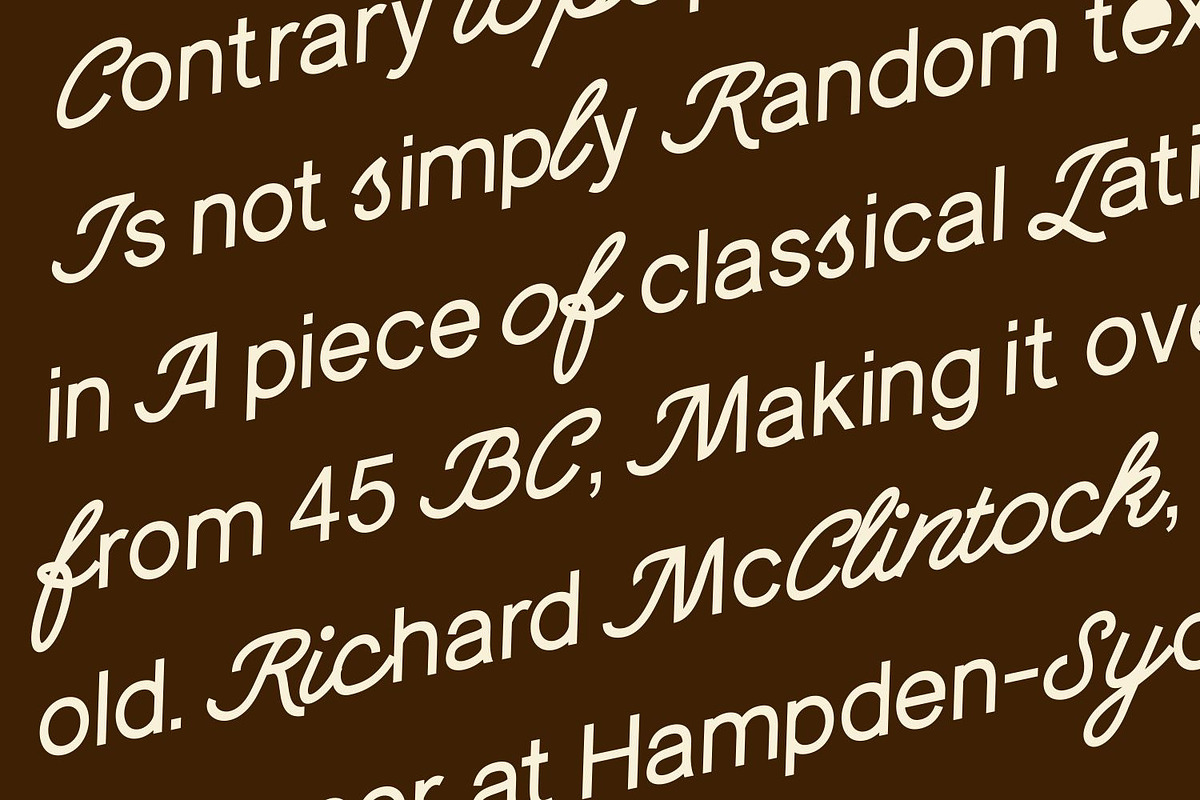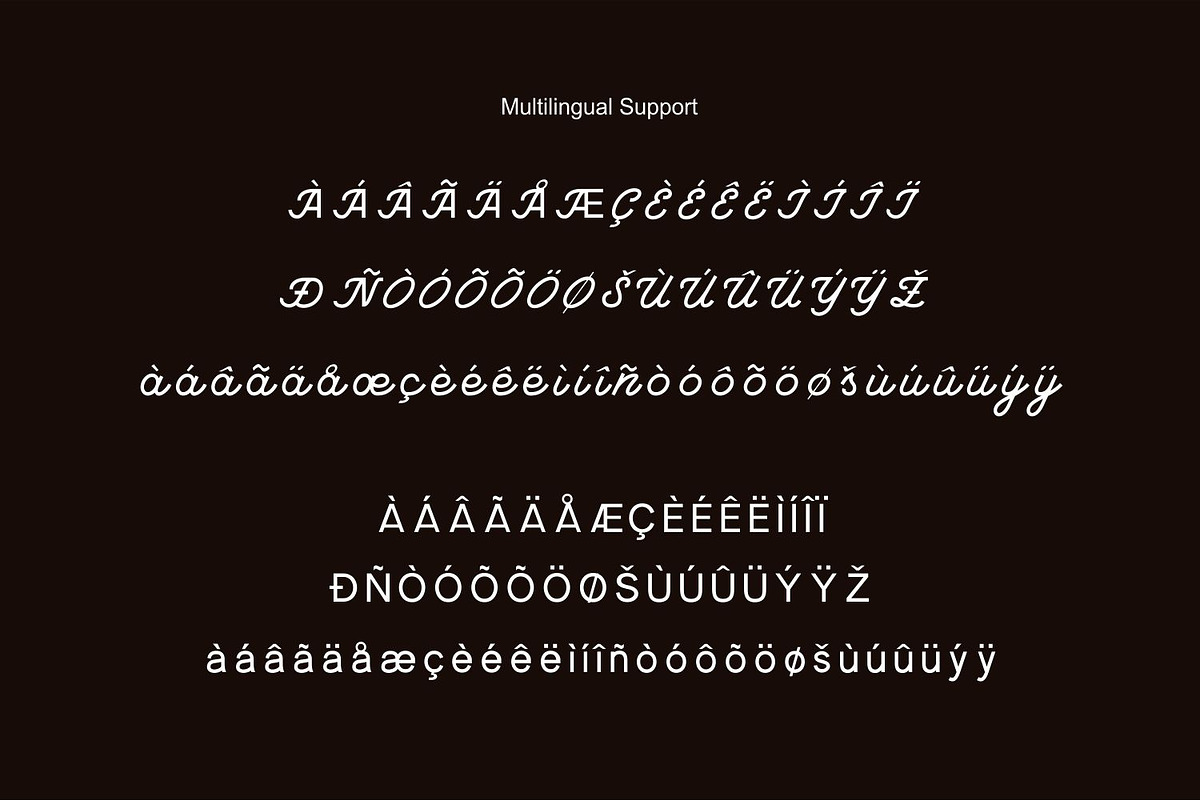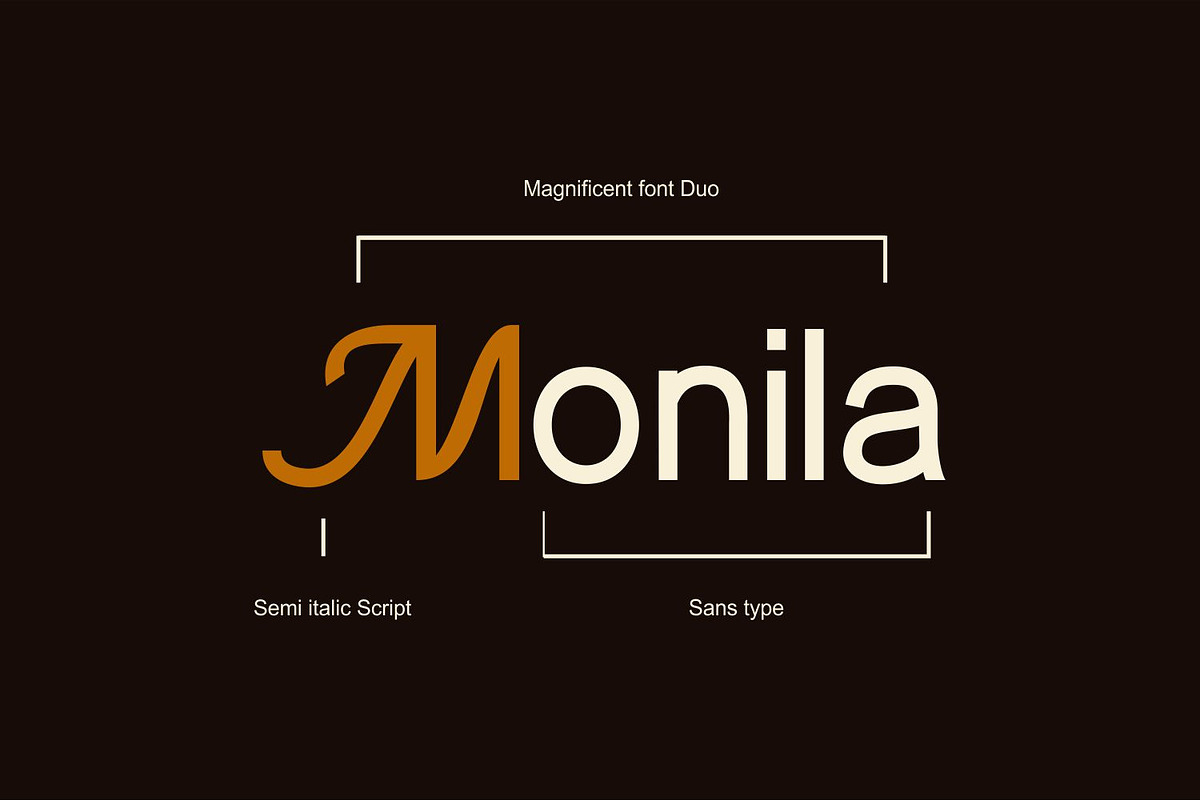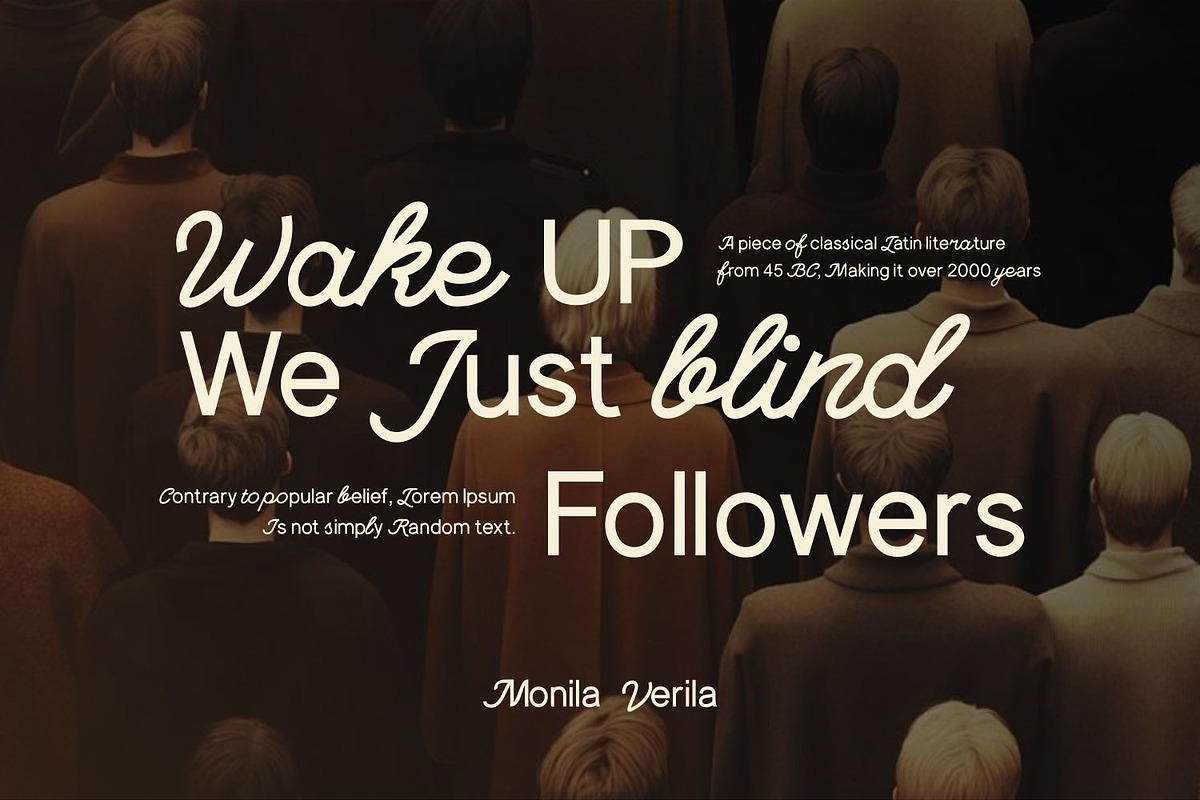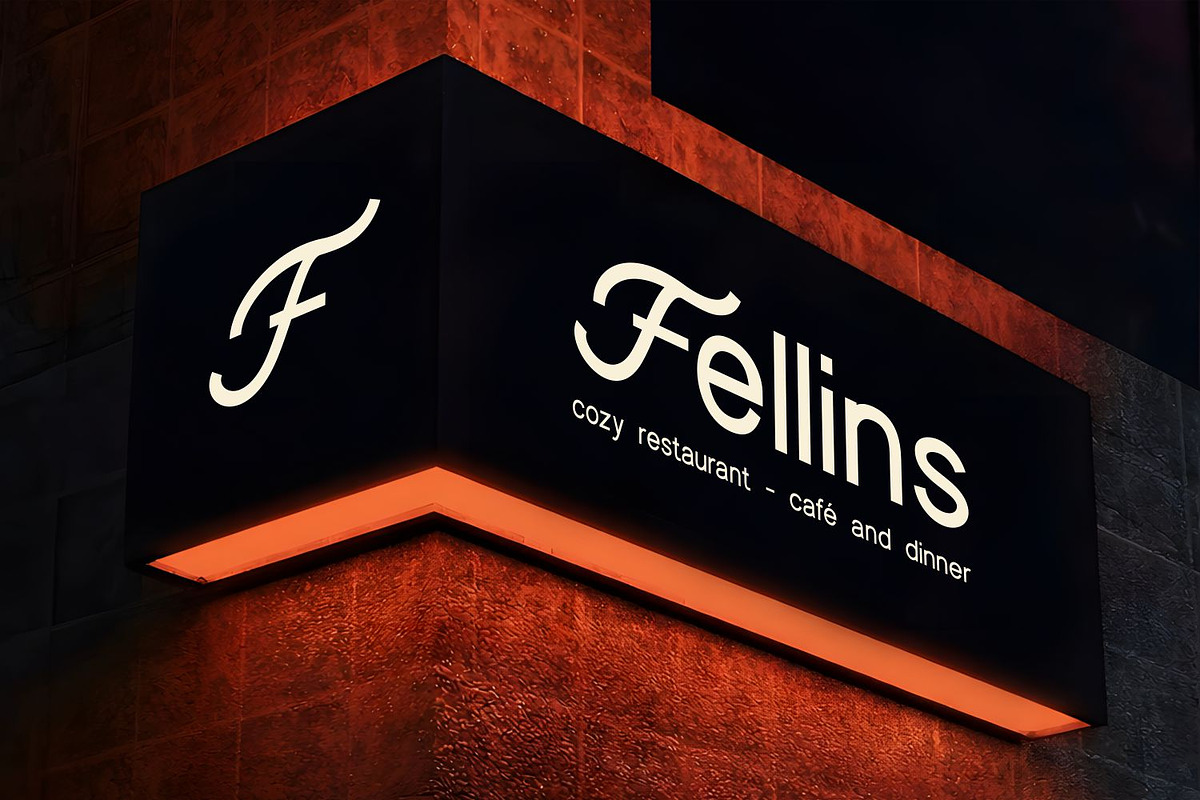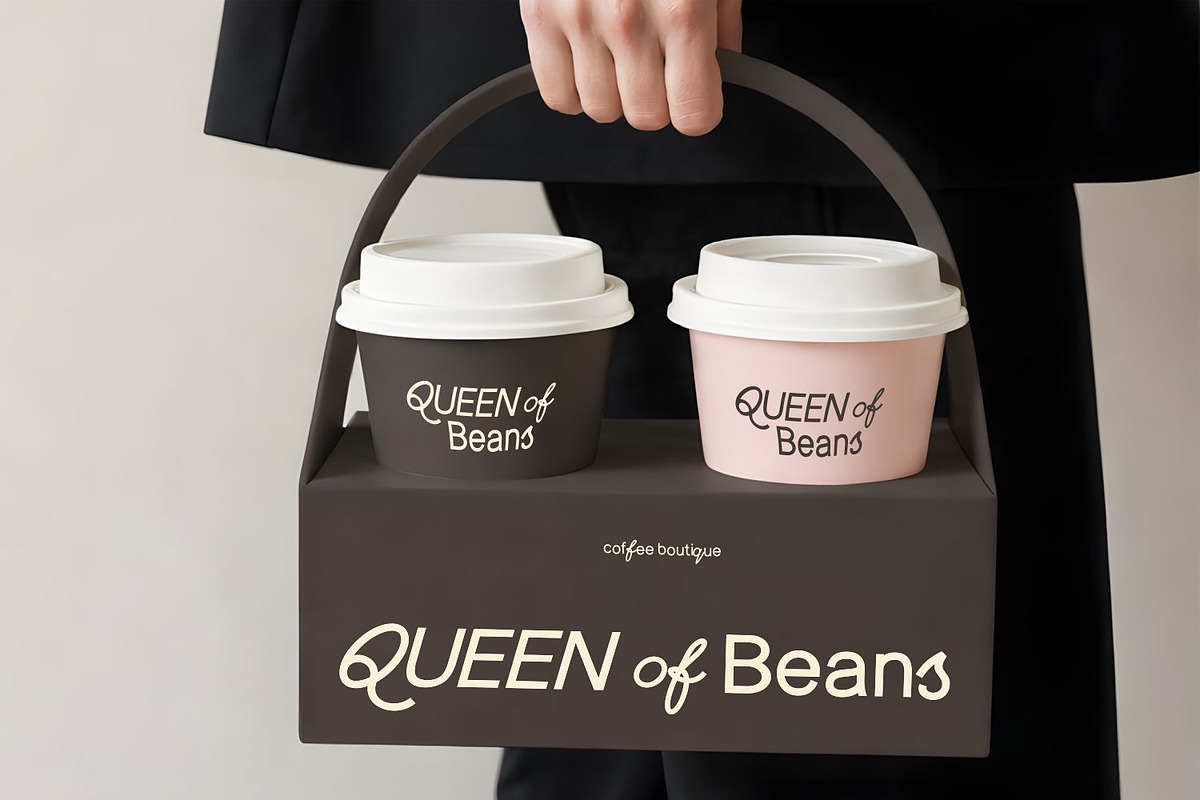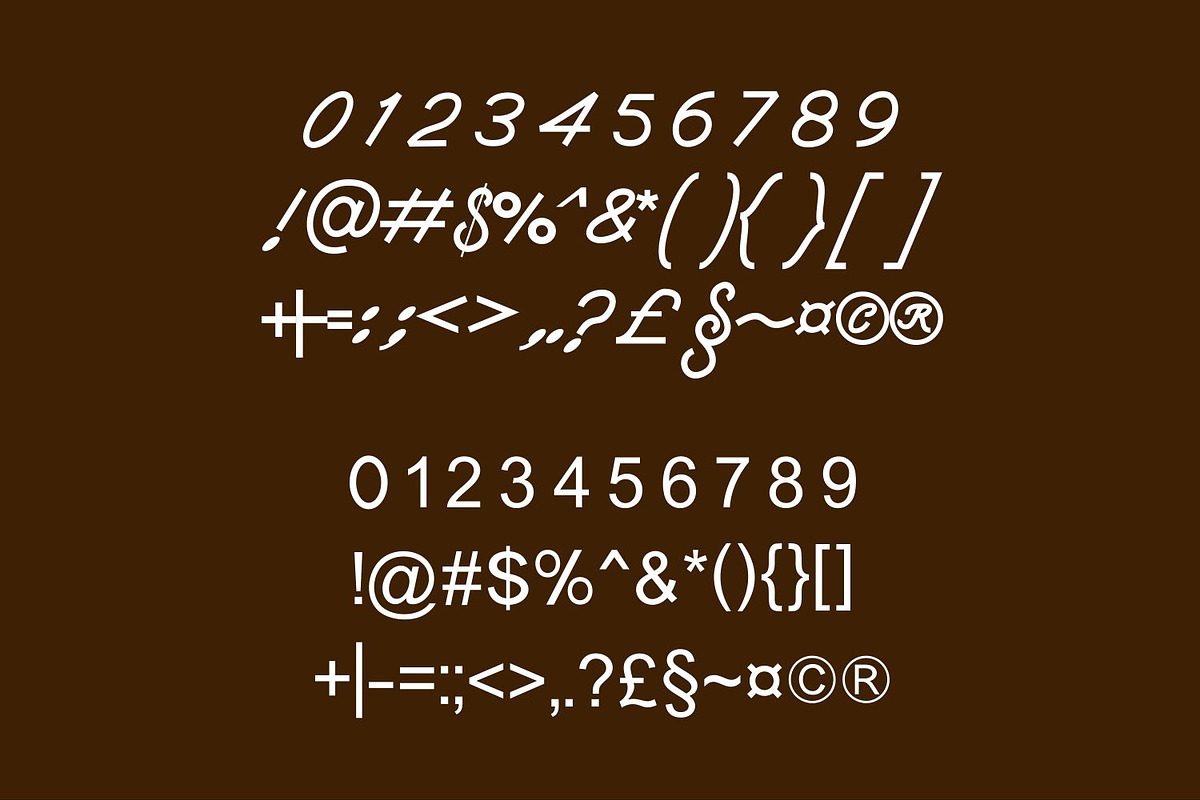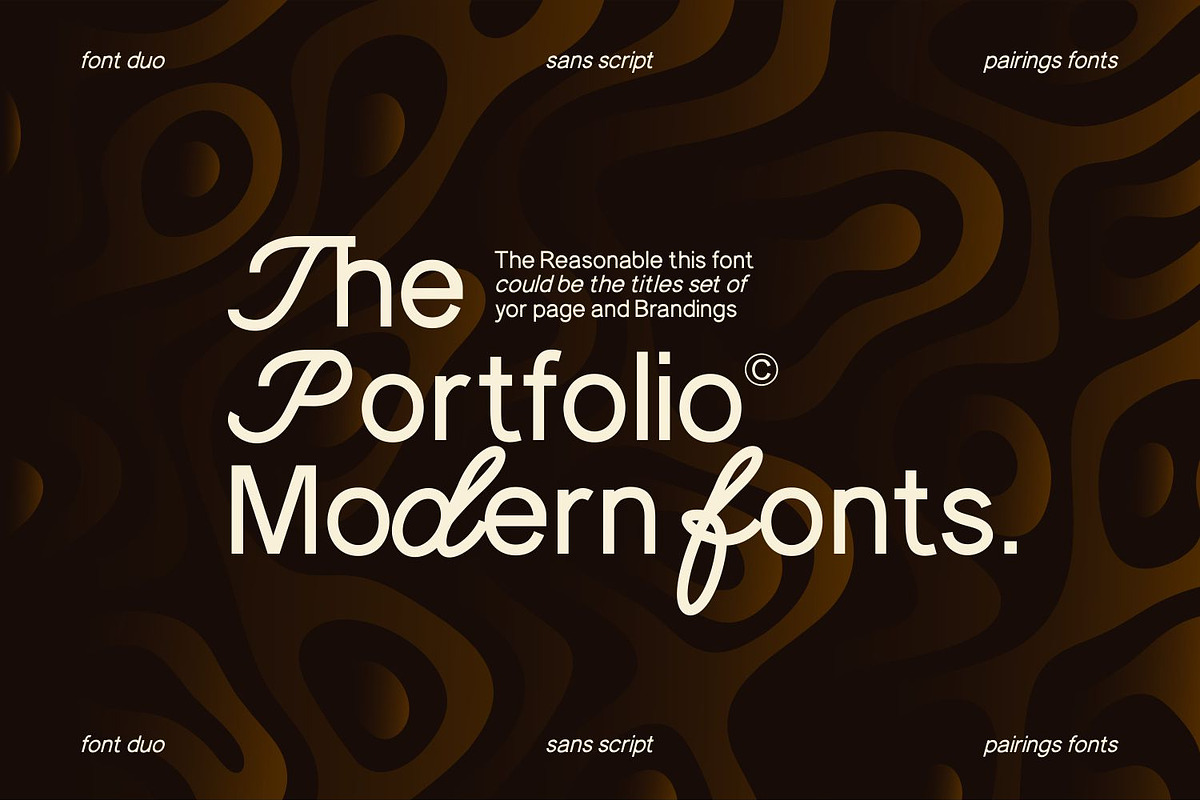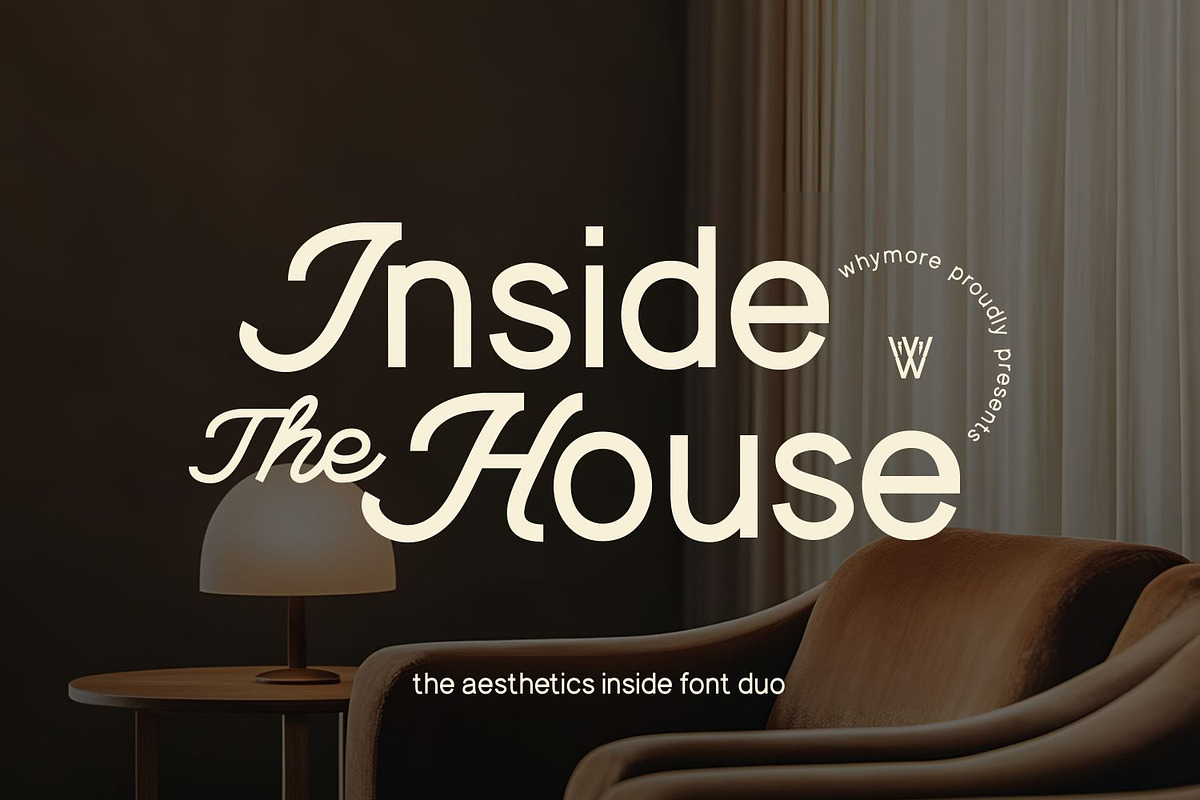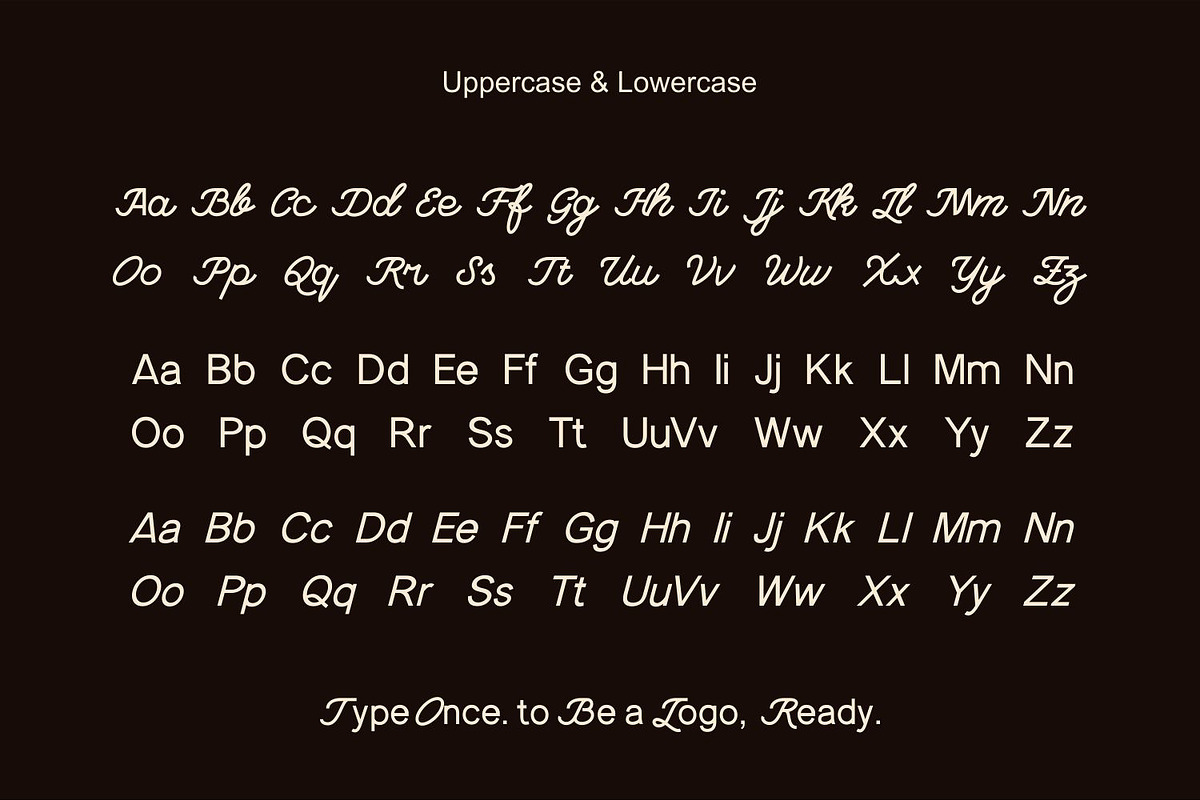
Monila Verila – Elegant Display Font
Monila Verila is a stylish decorative display font designed to instantly transform text into eye-catching logos and brand visuals. Featuring smooth curves and a modern retro character, this font is perfect for designers who want fast, professional-looking results.
With its unique letter connections and bold personality, Monila Verila works beautifully for:
• Logo design & brand identity • Social media posts & content creation • Posters, headlines & advertising • Packaging, fashion branding & lifestyle visuals • Website headers & digital campaigns
This font is crafted to look like a custom logo in just one type — making it ideal for creatives, entrepreneurs, and content creators who need strong visual impact with minimal effort.
✨ Clean yet expressive display style ✨ Perfect for modern, retro, and luxury branding
Type once. Instantly a logo.